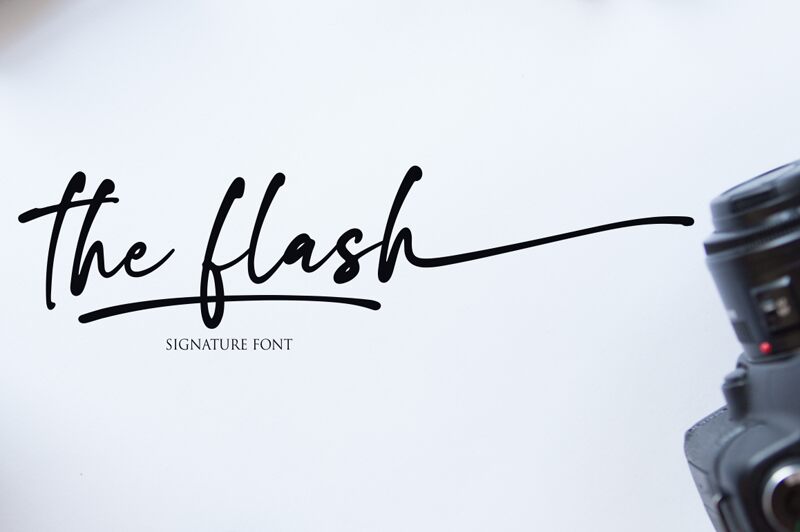
The flash
Experience the fluid elegance of The Flash, a distinctive handwritten font crafted by the creative minds at NJ Studio. With its semi-light weight and signature style that mimics the graceful strokes of a seasoned calligrapher, The Flash brings an authentic touch of personal charm to any project.
Its beginning and ending swashes add a sophisticated flair, while the cleverly designed ligature characters promise to elevate your designs with an artistic coherence that is both rare and captivating. Perfect for branding, invitations, and editorial work, The Flash is versatile enough to infuse life into your most ambitious creative endeavors with its unique blend of casual grace and professional finesse.